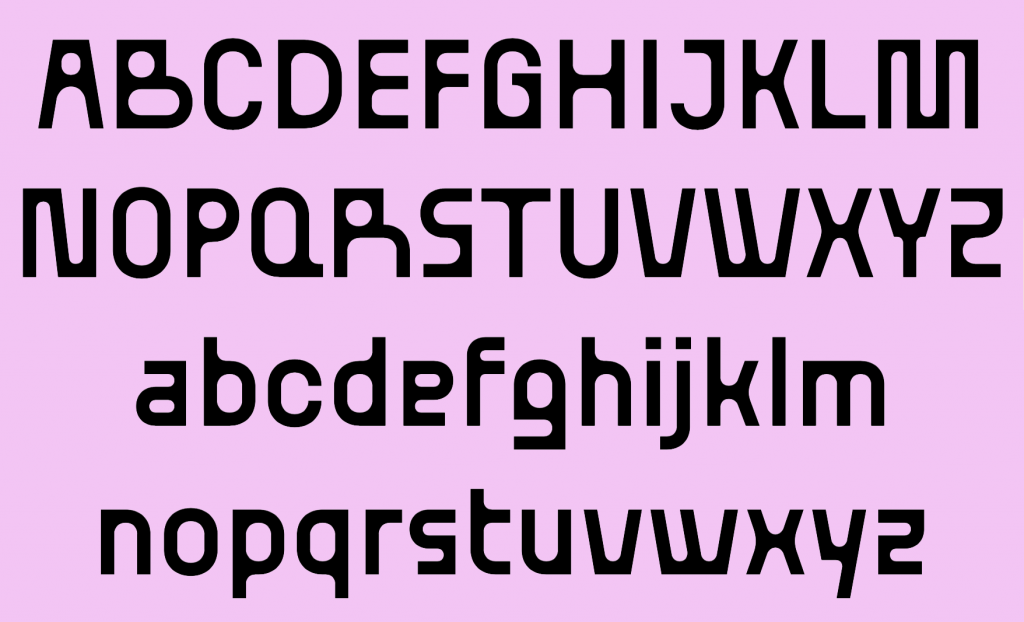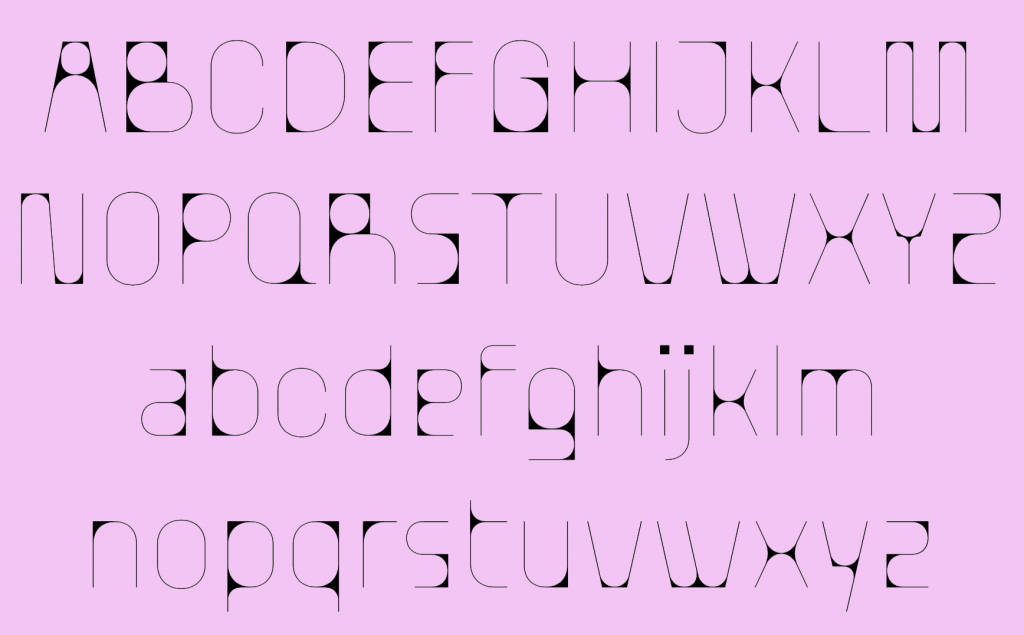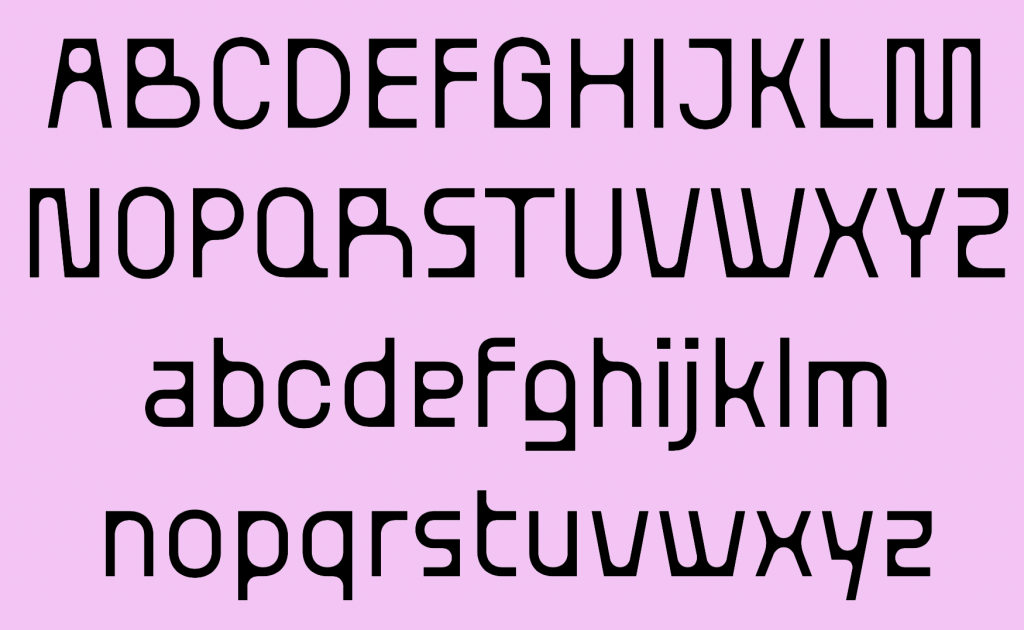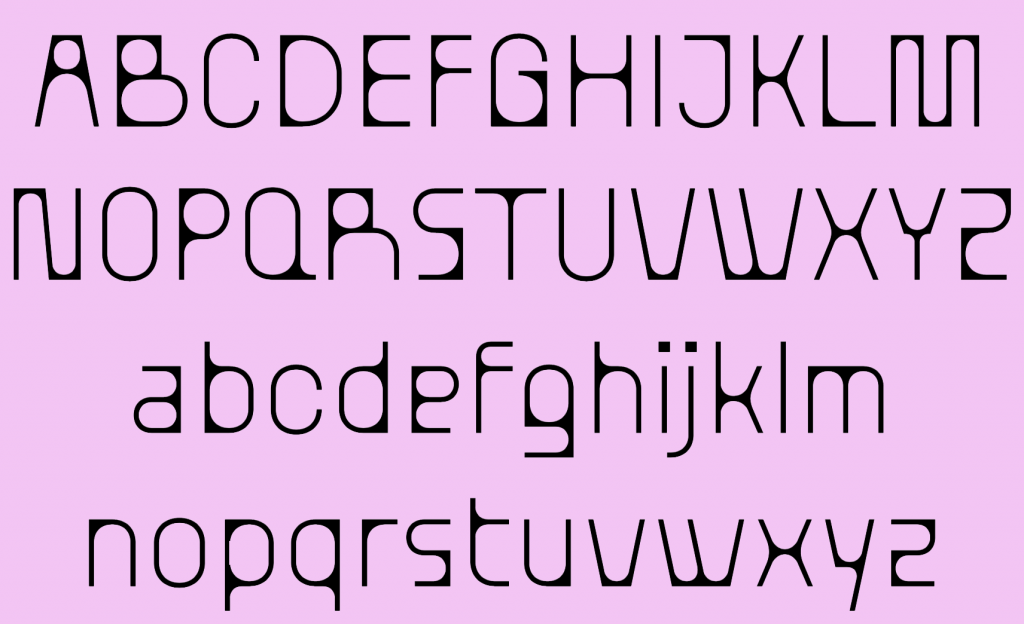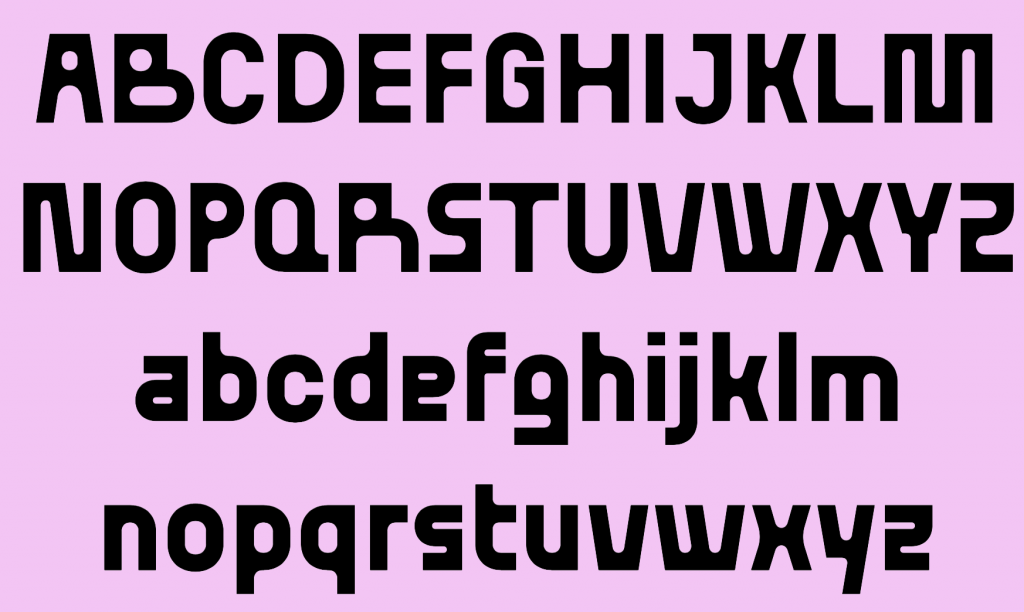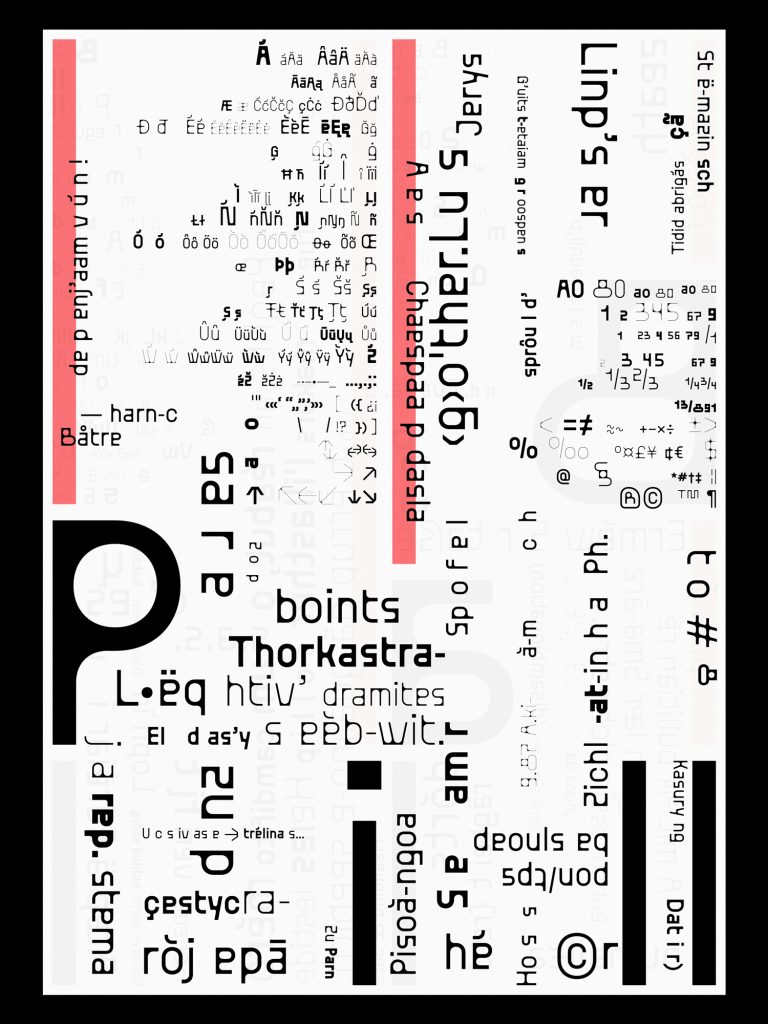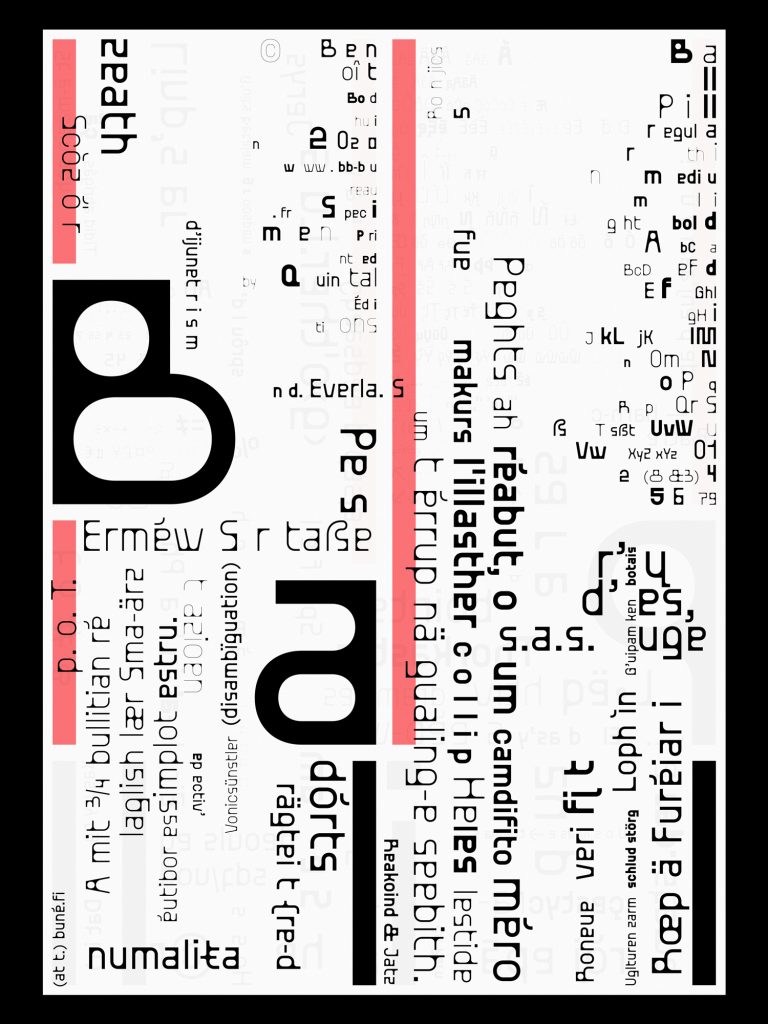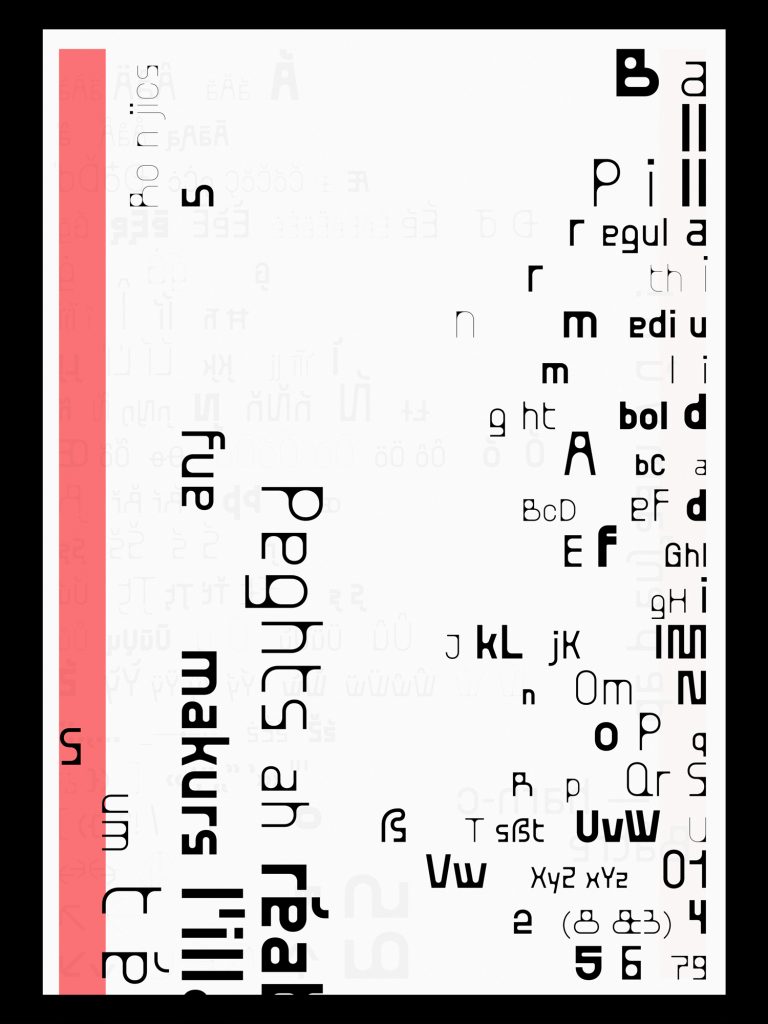
Name: BallPill
Designer: Benoît Bodhuin (specimens printed by Quintal Éditions)
Back Story: French type designer Benoît Bodhuin created BallPill in the space of just a few months, starting in December last year. The typeface draws on some of his previous projects, including Pickle-Standard, with its rigid mode of construction. As such, Bodhuin says the new font was a continuation of a process rather than a style, which “brings a different answer to a very similar problem: the grid and its construction. It’s turning a subject around in order to define it.” The designer often looks back to previous work in order to create new fonts—“either by continuity, or by rupture,” he says—which might help explain the speed at which he can come up with the concept for a font, complete it, and get it to market.
Another of his previous projects he looked to for BallPill was the Waldeck typeface, a custom font he made for freelance designer and web developer Waldeck Néel. BallPill gave him a platform to try out some design ideas he’d been itching to explore in Waldeck that weren’t feasible in the context of brand type. “By designing typography, we make choices and we exclude others, which are sometimes very good finds but which aren’t consistent with the typeface we’re working on at that moment,” says Bodhuin. “It was all about trying to answer the rules I’d set for myself, and choosing the design solutions that seems most inherent to me.”
Why’s it called BallPill? A number of reasons, as it turns out. Initially, Bodhuin said he chose it simply because it’s “strange.” When pressed further, he notes that the counter weights are round like a ball. The idea of a ball also feeds into the fact it’s a “rebound” typeface, as the designer puts it, in that it directly feeds off his previous work. It’s also a nod to another key influence on the font—Swiss architect, painter, type designer, industrial designer, and graphic designer Max Bill.
Overall, however, Bodhuin says he chooses titles quite intuitively. “The names also often change during the creation of the character until I have the feeling that it works,” he says, adding that titles respond to the “fantasy” of type. “Type design is akin to creating music—making the sound of words visual—and the syllable ‘Pill’ sounds good with ‘Ball’ for me,” he adds.
What are its distinguishing characteristics? As for distinguishing letterforms, the capital “R” neatly summarizes the idiosyncrasies that make BallPill compelling—despite Bodhuin’s many design rules in terms of the letterforms’ geometric arrangement on a grid. In its creation, the capital “B’s” interior form was treated entirely differently to its exterior, and the upper and lower parts were also designed independently of one another. Similarly, the lowercase “n” is not in fact symmetrical.
Another interesting quirk is that the bold form of BallPill is in fact closer to the usual writing style of most fonts: while the light weight highlights the peculiarities of the typeface, the stark oppositions between the straight and rounded aspects of the characters become all the more visible. At the core of the font is the principle of minimizing forms as far as possible, says the designer, allowing him to create a wider “vocabulary” of letterforms that become inherently expressive through design decisions based around oppositions, such as using straight shapes against rounded counters and so on.
What should I use it for? Thanks to its grids, rules, and constraints, BallPill should be used for applications that are “mechanical and rational,” as Bodhuin puts it. There’s a definite so-retro-but-so-the-future vibe about it that makes it a good pick for branding projects that nod to the 1950s—such as for vintage-y furniture—or signage for architectural projects.
What other typefaces do you like to pair it with? As BallPill is so full of character, it’s tricky to place it next to other fonts without overpowering them. As such, you’d be wise to consider it as a statement font of sorts, but one that can be used for longer body copy. Perhaps the best pairing might be a more handwritten style font, rather than something more starkly modern, like Courier. Bodhuin suggests that old style serif typefaces would be a good counterpoint, as would anything in the grotesk family.